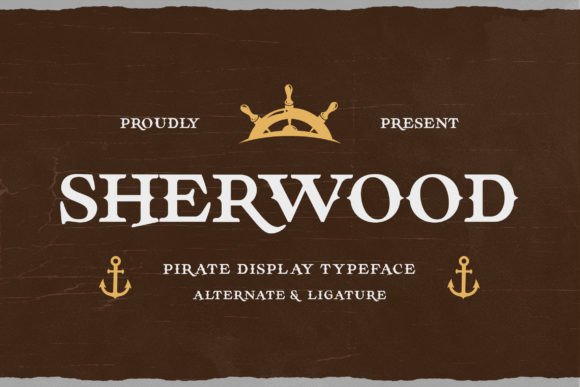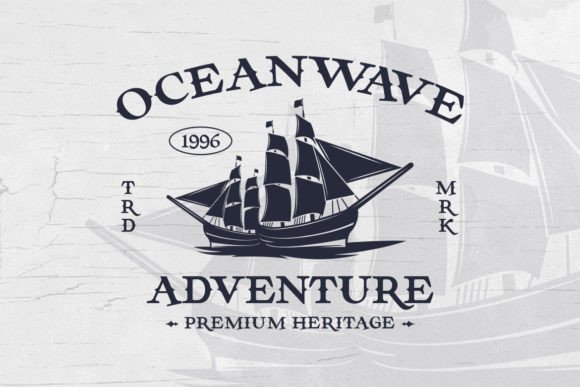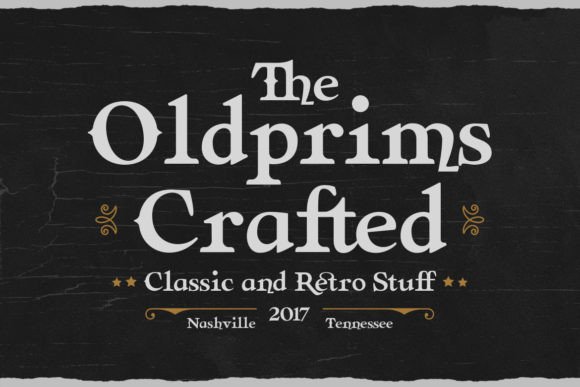
Sherwood Font
Sherwood is a pirate fantasy font that will immediately take you into adventure vibes.
This font will be the ideal choice for any movie, game, and pirate-themed design you wish to develop